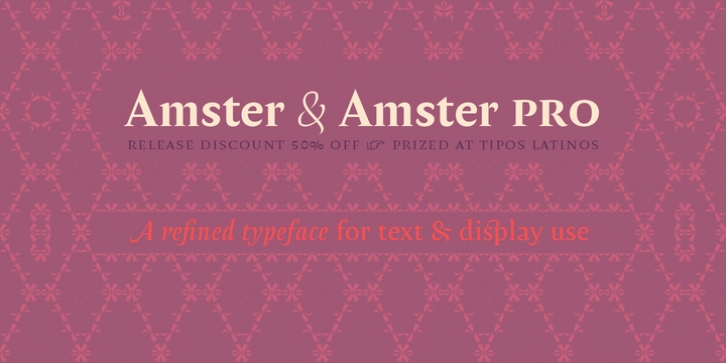
Amster was designed by Francisco Galvez and published by PampaType. Amster contains 21 styles and family package options.
Amster is an energetic & refined type created by Francisco Gálvez, with a sharp idea on how elegance & legibility can meet harmoniously. Amster can build a text that is highly readable as well as friendly. It has five weights of roman & cursive both with smallcaps and fully-equipped with all OT sorts and even a wonderful set of illuminated initials. Amster is a very versatile typeface, allowing for a wide range of uses: screen to print, small text to display, science to poetry. Amster speaks more than 200 languages.